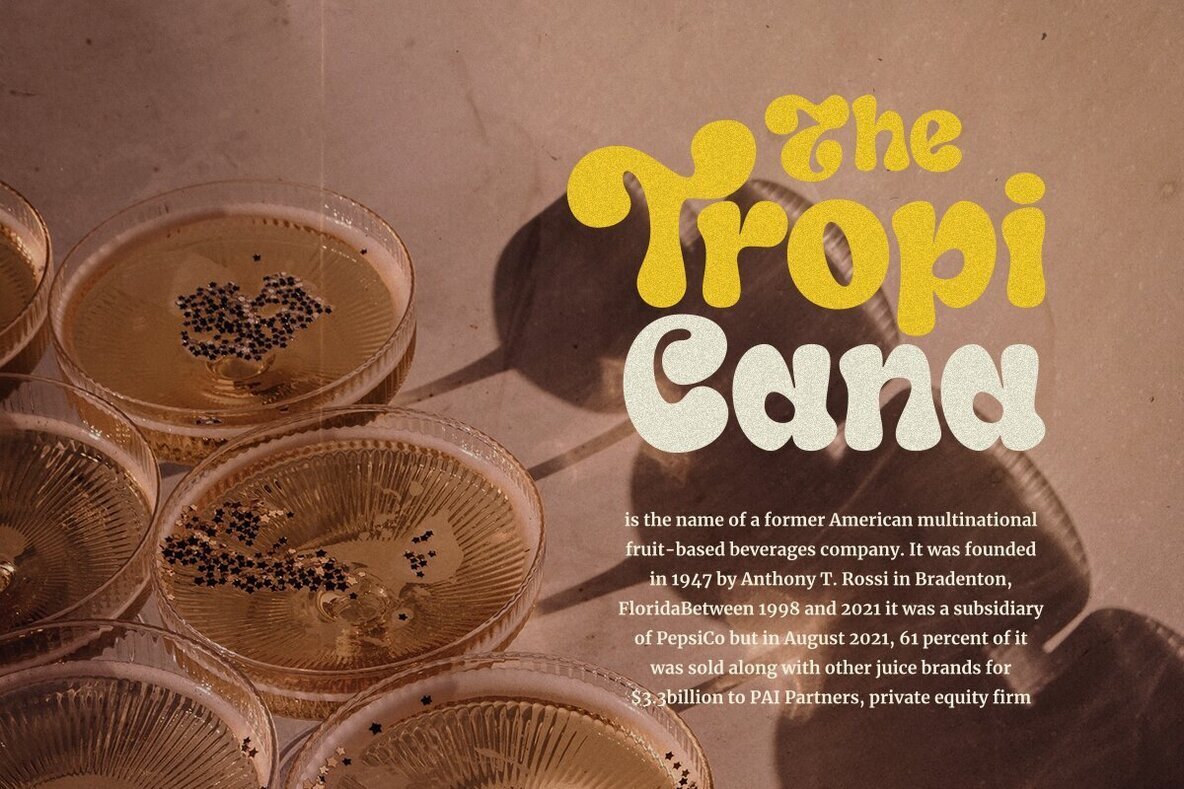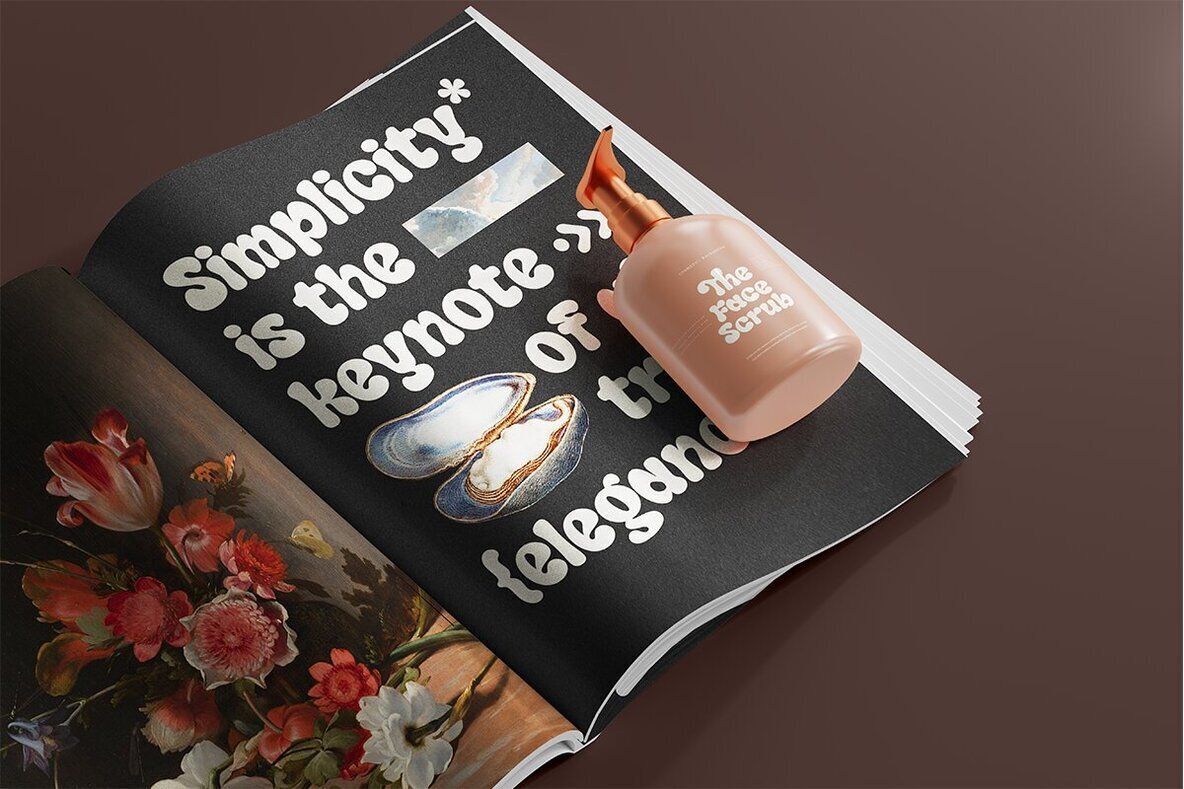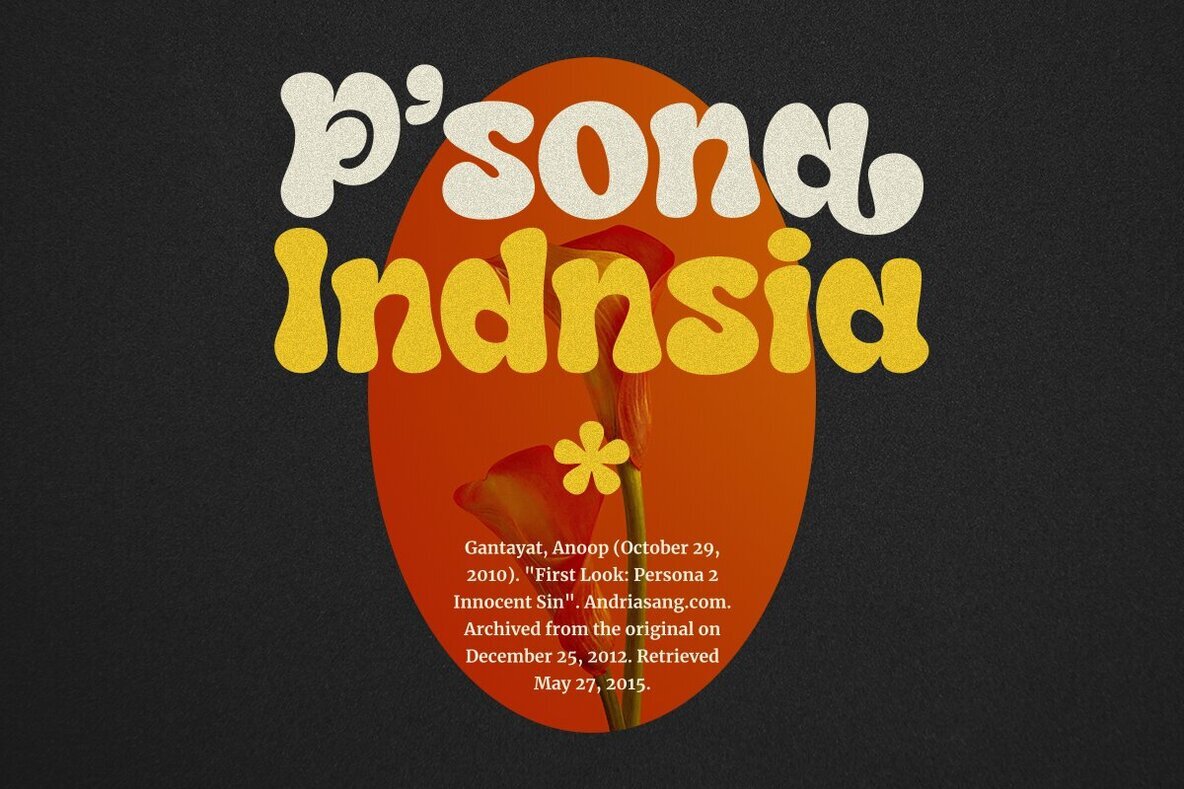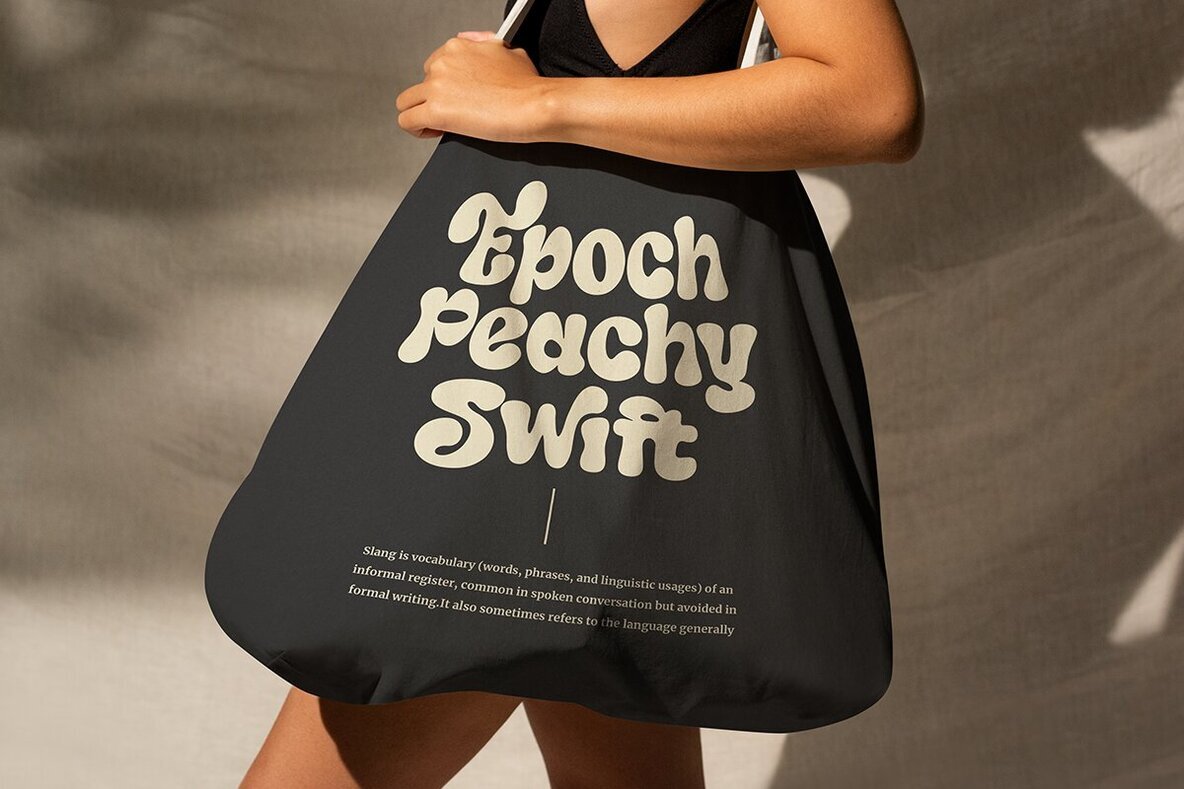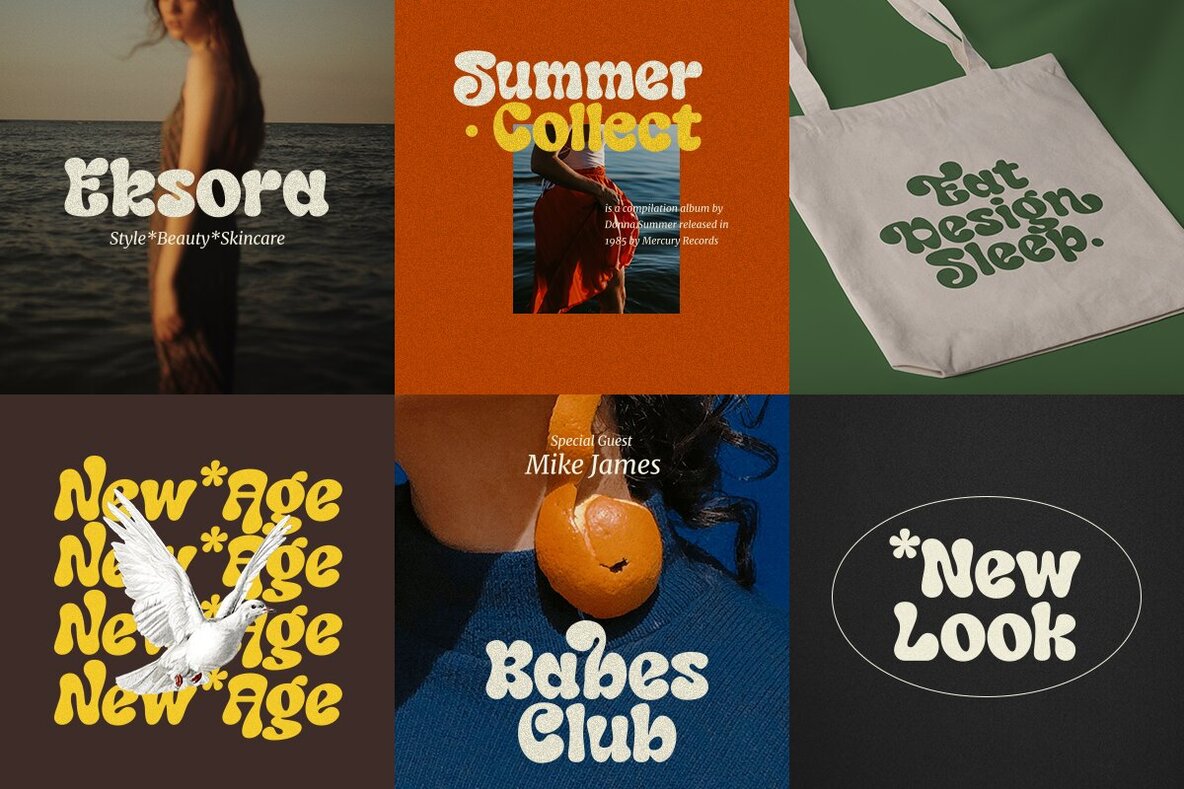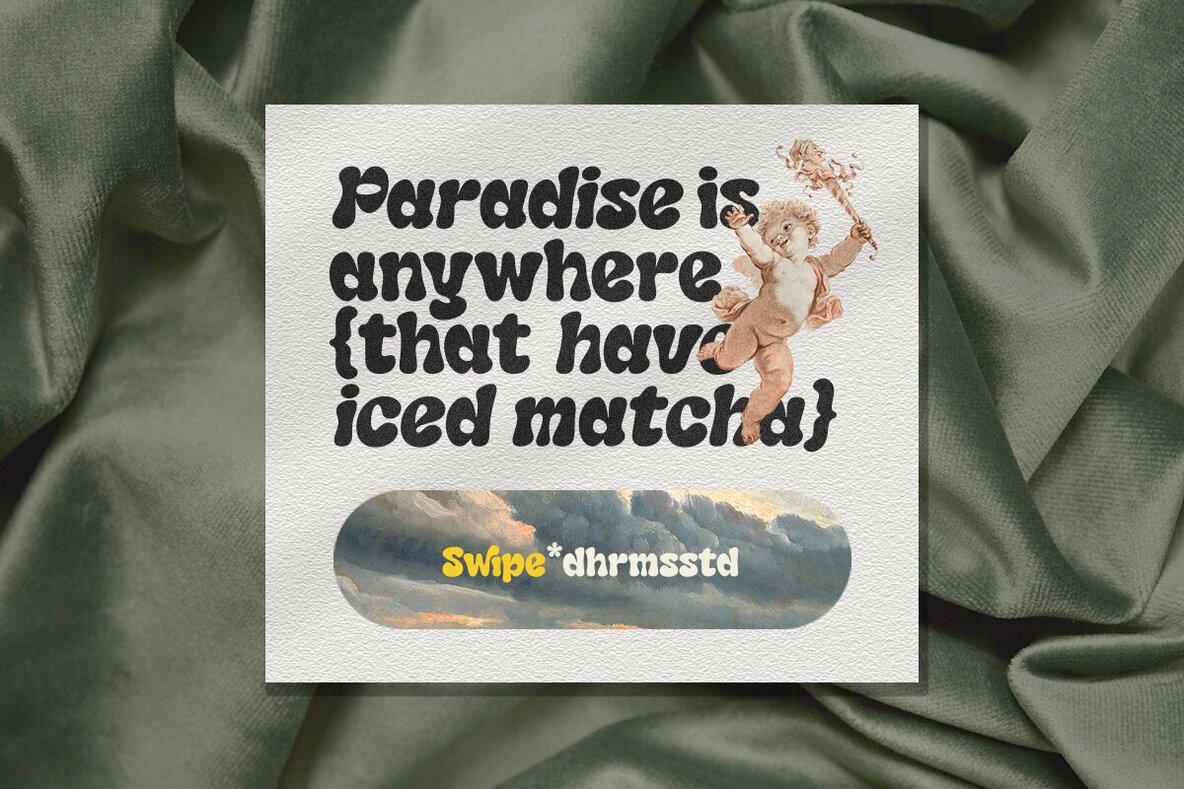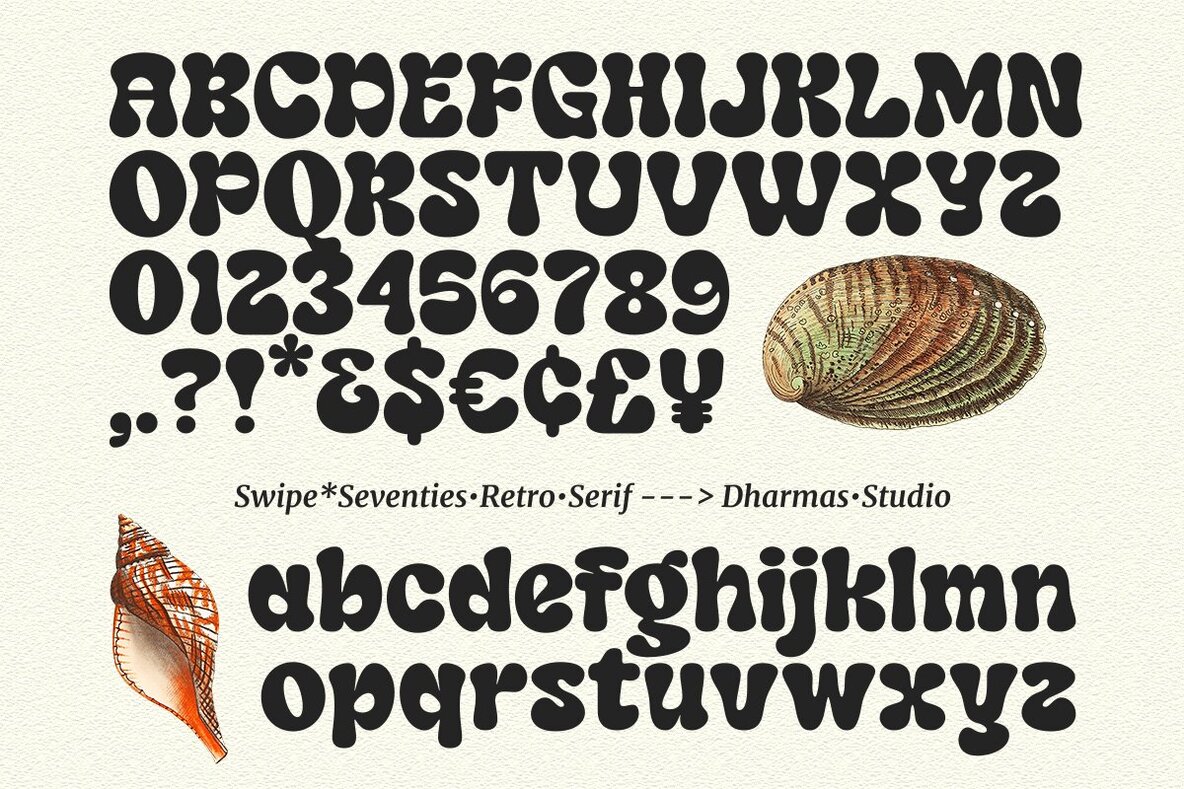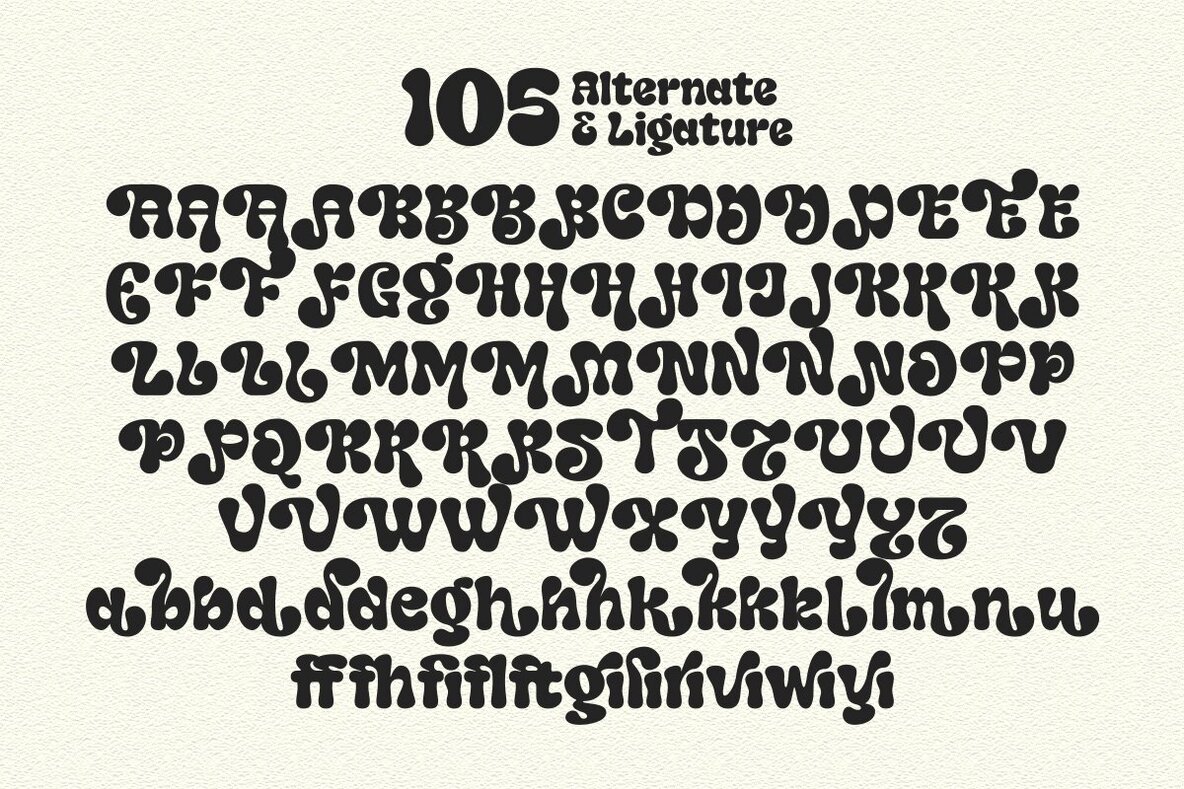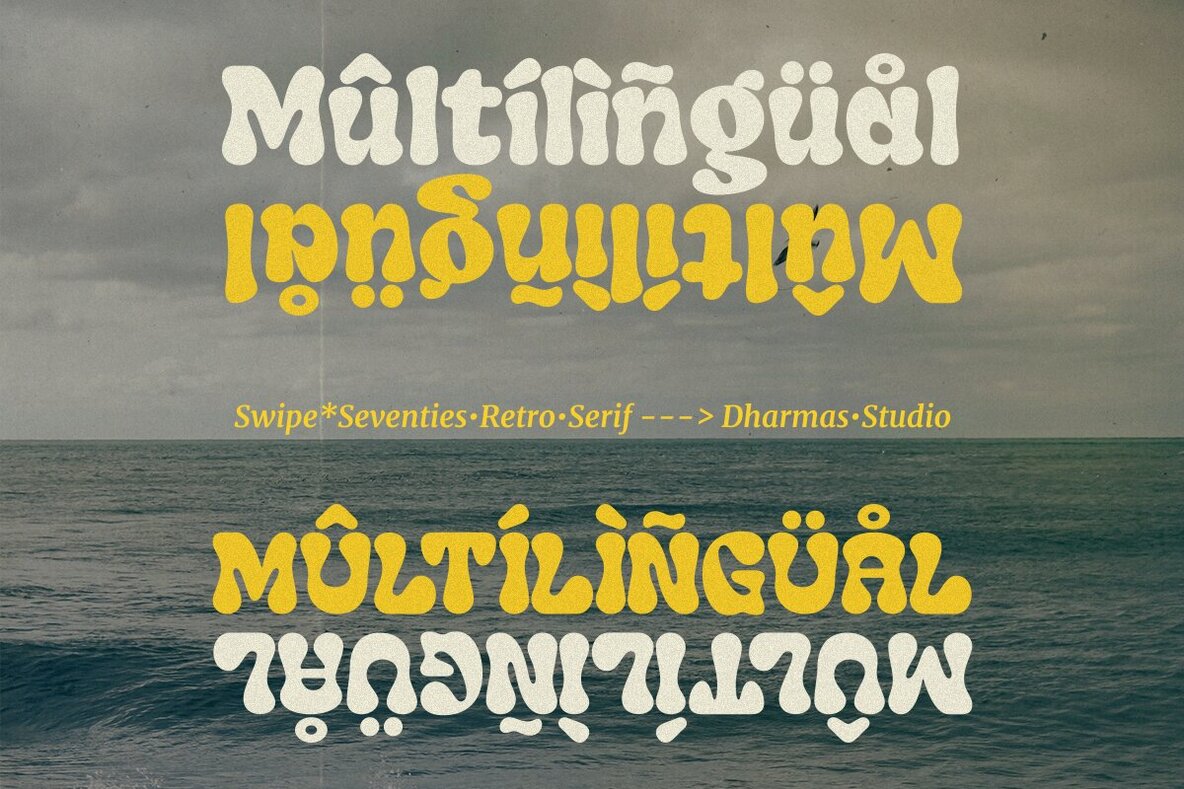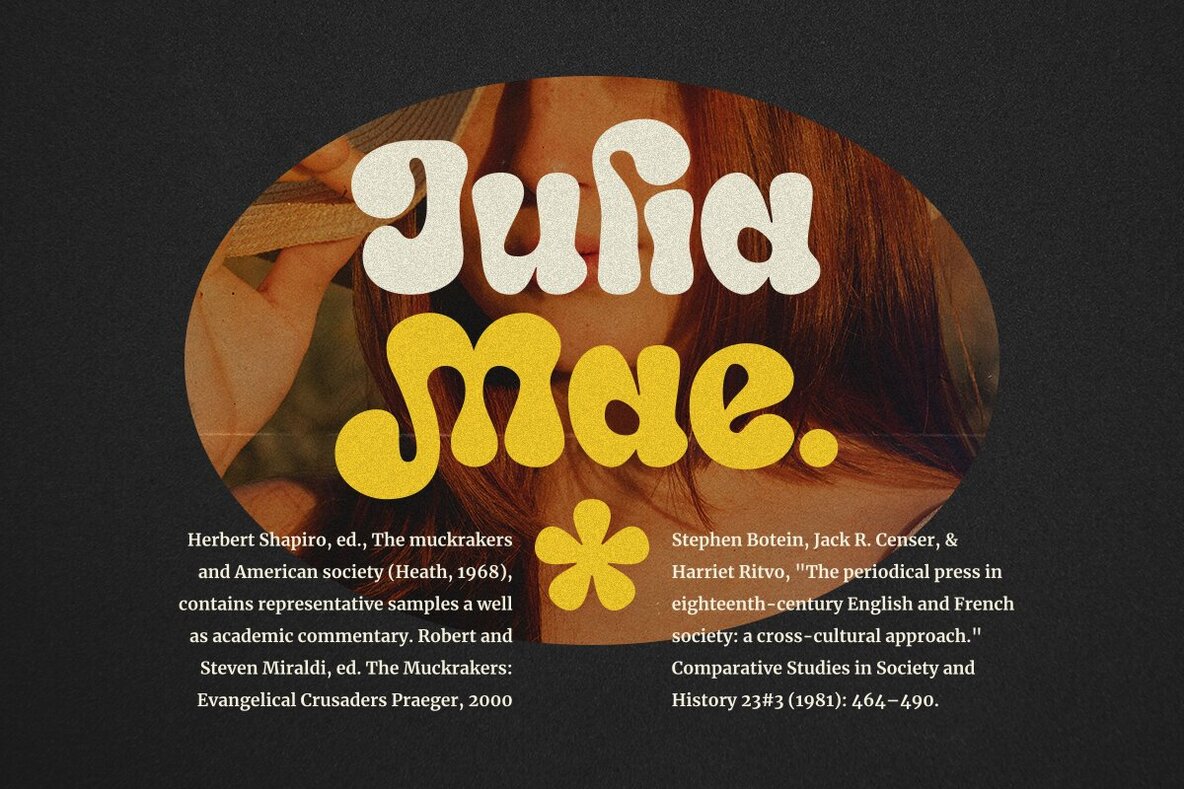
Swipe Font
Swipe
Swipe Italic
Embrace the nostalgia of 1970s design with Swipe by Dharmas Studio. This font captures the playful spirit of the era through its smooth curves and soft bold strokes. Offered in both regular and oblique styles, Swipe infuses projects with a charming retro vibe that is perfect for various creative applications. Swipe's adaptability makes it a brilliant choice for designers seeking a limitless font. It supports an extensive range of languages, ensuring your projects resonate with diverse audiences.Swipe: A Seventies Inspired Retro Font